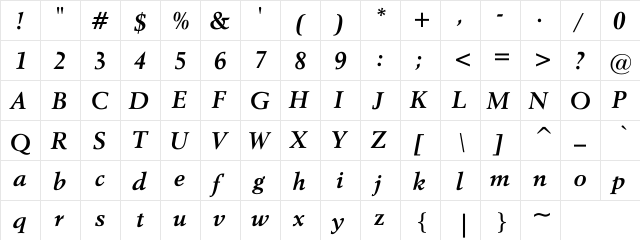
CoyGarr Bold Italic Regular
Design Context for CoyGarr Bold Italic Typeface
CoyGarr Bold Italic takes a measured approach to typography — its balanced proportions and neutral character make it a reliable workhorse for both digital and print work. Its italic angle brings a sense of urgency and motion to the letterforms. The heavy weight commands attention and anchors typographic hierarchies.
Pro Tip: Use CoyGarr Bold Italic for emphasis, pull quotes, and subheadings where its slanted energy can add rhythm to the layout.